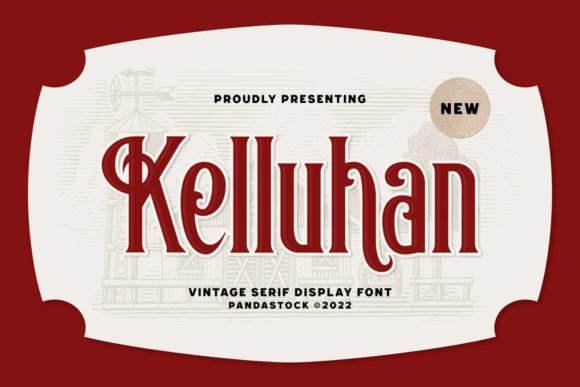
Introducing Kelluhan Font, a captivating display font that will leave you spellbound. This elegant and stylish font is meticulously crafted to elevate your designs with a touch of sophistication. Whether you're a seasoned graphic designer or just starting, Kelluhan Font is a must-have addition to your font collection.
Immerse yourself in the beauty of Kelluhan Font, a font family that radiates timeless appeal. With its intricate curves and expressive lines, this font exudes an air of sophistication and grace. Inspired by the art of tattoos, Kelluhan Font captures the essence of individuality and self-expression. Each character is a work of art, carefully designed to evoke emotions and make a statement.
Unleash your creativity with Kelluhan Font, a versatile font that knows no bounds. Whether you're working on branding projects, creating social media graphics, or designing posters and flyers, Kelluhan Font will effortlessly elevate your work. Its adaptability shines through whether you're crafting logos, T-shirt designs, or eye-catching headlines.
Transport yourself to a world of endless possibilities with Kelluhan Font. Its delicate strokes and flowing curves bring a touch of elegance to any project. Experience the joy of creating designs that resonate with your audience, leaving a lasting impression that speaks volumes.